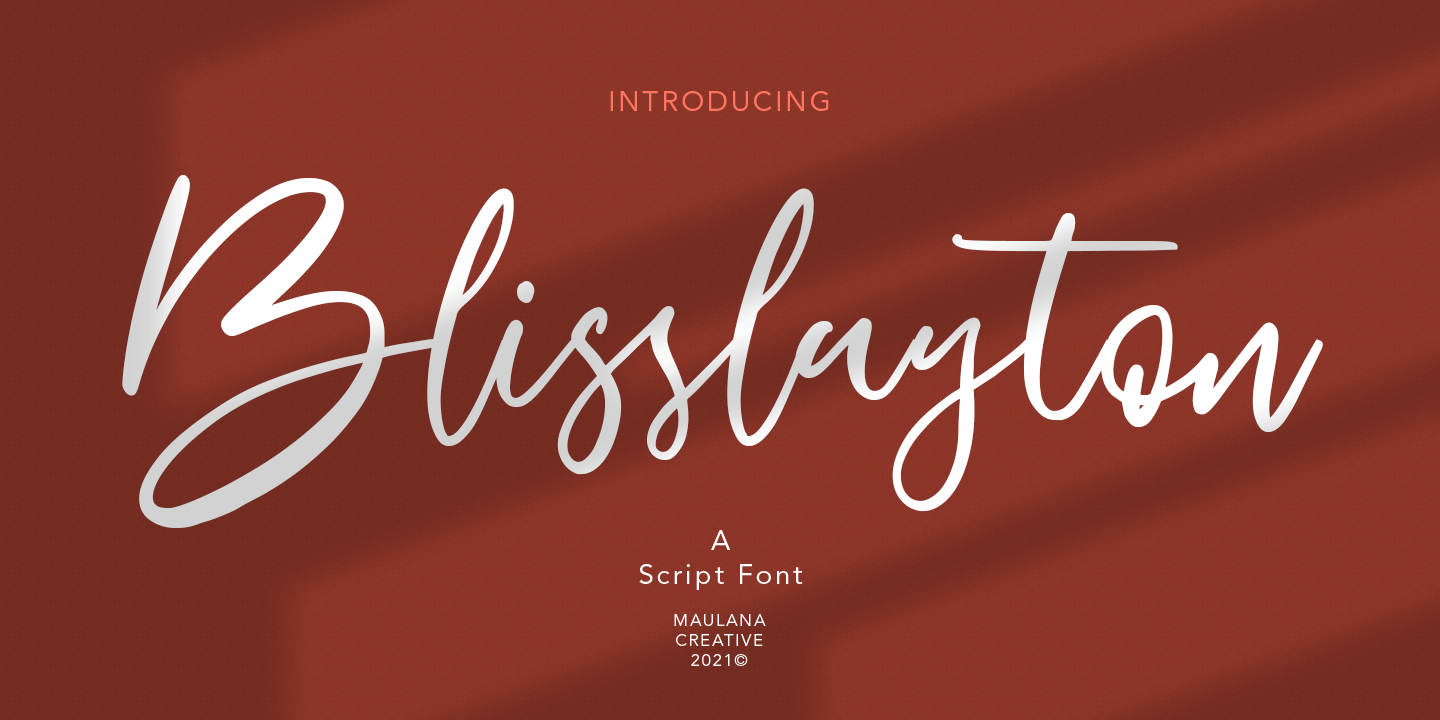
Blisslayton Font is perfect for wellness brand communications, mindfulness app interfaces, spa and meditation center branding, peaceful lifestyle magazines, serene wedding invitations, tranquil yoga studio signage, calming therapeutic product packaging, and harmonious spiritual brand designs.
What makes Blisslayton Font exciting is its serene tranquility and blissful harmony that creates an immediate sense of peace and well-being in every application. This soothing typeface combines gentle curves with balanced proportions, creating letters that radiate calmness, mindfulness, and inner peace. The font's meditative character details and harmonious aesthetic make it an ideal choice for brands seeking to communicate serenity, wellness, and spiritual connection to their audiences.
Blisslayton Font family includes Regular, Bold, Light, Thin, Italic, and Rounded variations, plus decorative zen elements and peaceful ornaments. Each style maintains the font's tranquil character while providing comprehensive flexibility for creating serene design systems and peaceful brand communications that promote well-being and mindfulness.
Wellness design specialists consistently choose Blisslayton Font Free Download for projects requiring peaceful sophistication and calming visual impact. This remarkable typeface has gained recognition among wellness brands, meditation centers, and holistic lifestyle organizations worldwide. The font's ability to convey tranquility and spiritual harmony makes it perfect for brands operating in wellness, mindfulness, and peaceful lifestyle markets.
The design philosophy behind Blisslayton Font emphasizes serene balance and peaceful sophistication. Its letterforms feature flowing curves and carefully balanced proportions that reflect the natural rhythm and harmony found in meditative practices. The font's distinctive elements include gentle flourishes and peaceful character variations that create immediate emotional connection with audiences seeking calm and spiritual well-being.
Creative agencies specializing in wellness and spiritual branding frequently select Blisslayton Font for clients requiring tranquil communication and peaceful brand expression. The font's versatility allows seamless integration into comprehensive wellness branding systems, from meditation app campaigns to spa product launches, ensuring consistent brand personality across all serene and harmonious touchpoints.
The technical craftsmanship of Blisslayton Font demonstrates meticulous attention to peaceful typography requirements and wellness design standards. Advanced OpenType features include contextual alternates and harmonious ligatures that enhance creative possibilities for calming designs. The font's comprehensive character set and international language support make it suitable for global wellness campaigns requiring both peaceful appeal and technical excellence.